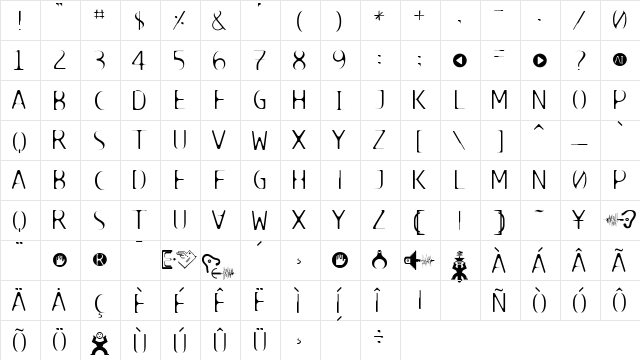
TECHNOIRE Regular Font Preview
TECHNOIRE Regular
TECHNOIRE Regular Font Details
Design Context for TECHNOIRE Typeface
TECHNOIRE channels digital-age aesthetics through its sharp, structured letterforms — ideal for brands that want to signal innovation.